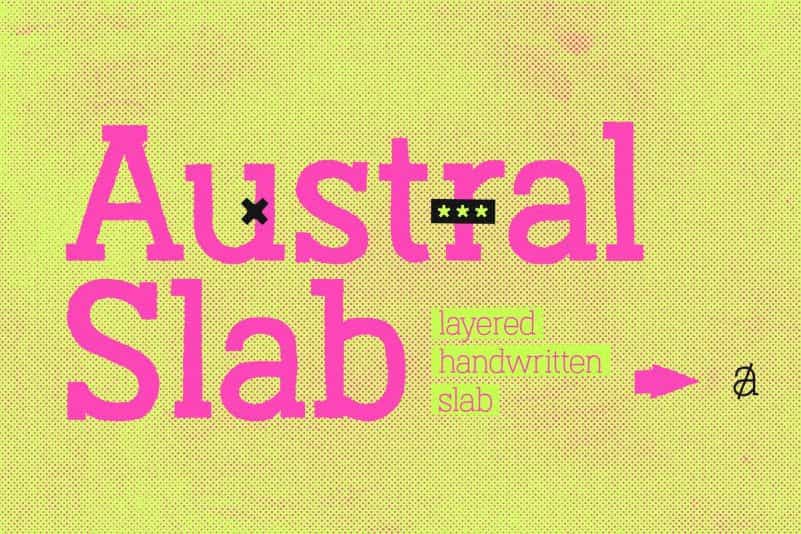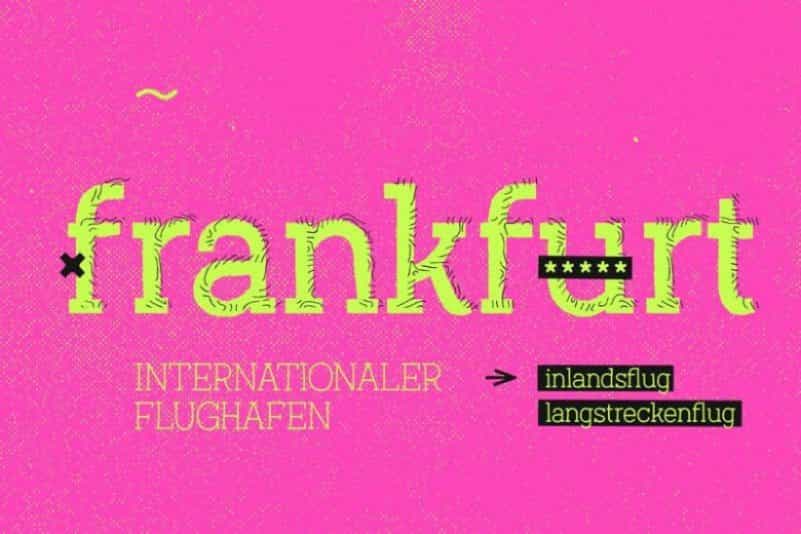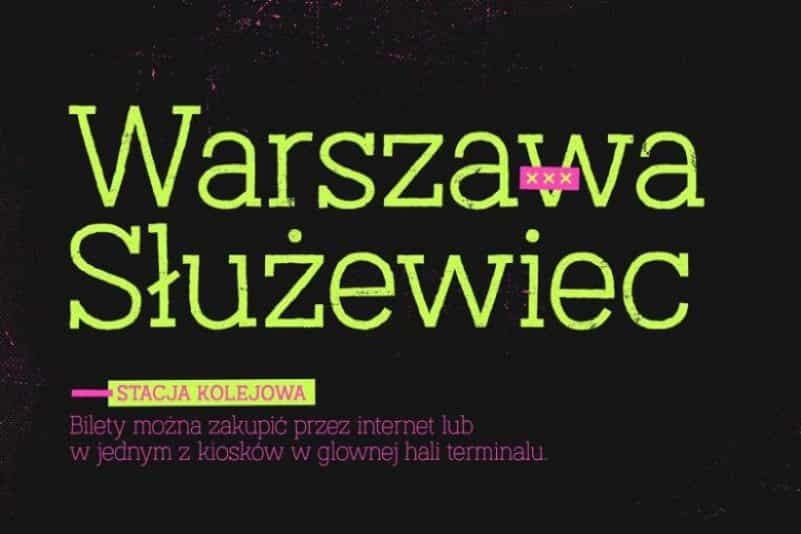
Introducing Austral Font. It comes with different finishes and looks that when added to your work, give it a different feel. It has three types: Regular, Light & Thin; the stroke and line are irregular, and crooked, which makes your work more unique and strong.